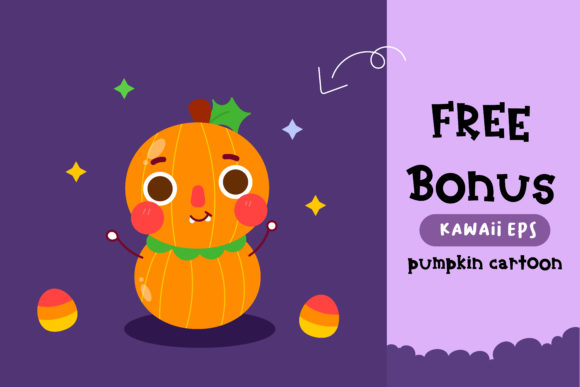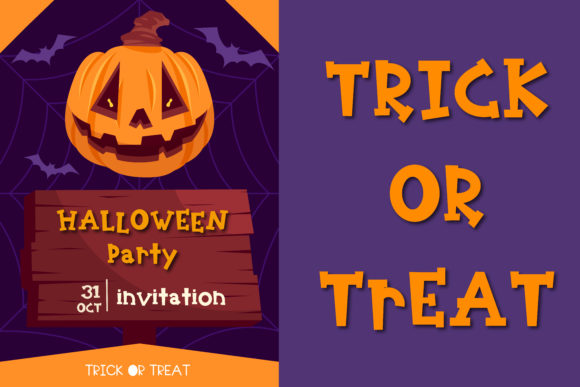
Halloween Pumpkin Font
db-ku.com - Script & Handwritten -- Halloween Pumpkin is a cute and colorful handwritten font. Featuring chunky characters, this font is a great match for a wide pool of contexts.